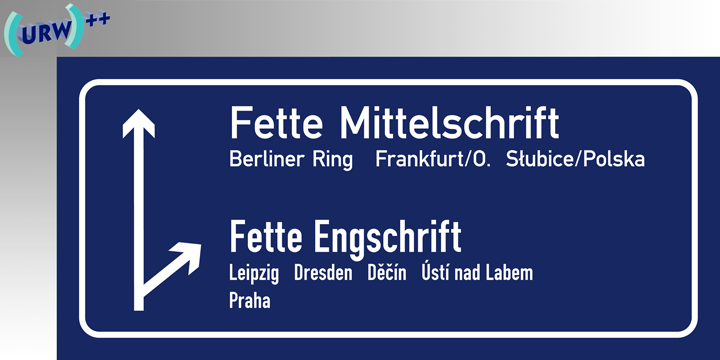
DIN 1451 Mittelschrift Font is ideal for signage, technical documents, branding, and web design. Its sans-serif, geometric design, standardized in 1936 for German industrial and traffic applications, excels in road signs, vehicle markings, and modern UI/UX projects.
Why is DIN 1451 Mittelschrift Font exciting? Its clean, legible structure, with uniform strokes and minimalist aesthetic, offers a timeless, functional appeal that enhances clarity and professionalism in any design.
The DIN 1451 Mittelschrift Font family includes styles like Regular, Condensed (Engschrift), and extended variants, with modern adaptations like FF DIN and Neue DIN offering additional weights and multilingual support.